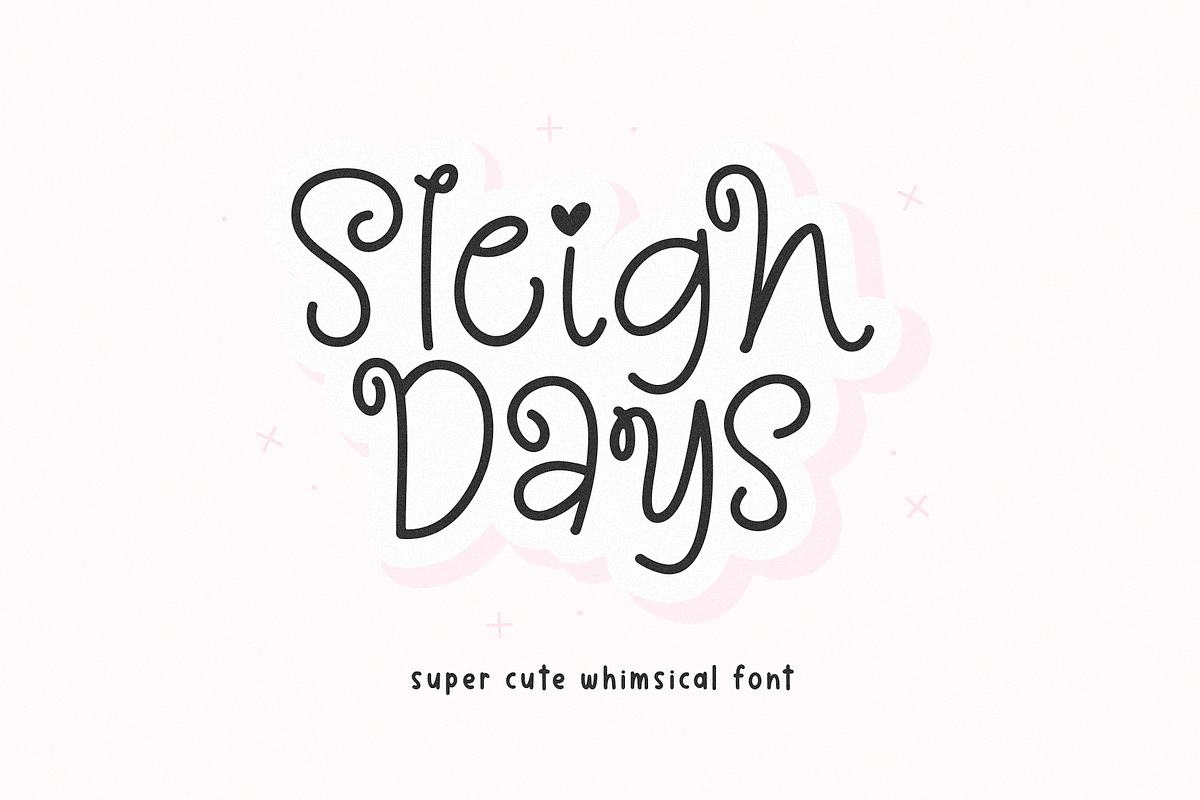
Please note that you must purchase this font for commercial use. You can download Sleigh Days – Cute Holiday Font for free, strictly for personal testing purposes only. Sleigh Days is a whimsical and cheerful display font designed to capture the magic and coziness of the holiday season. With playful curves, soft letterforms, and a festive feel, Sleigh Days Cute Holiday Font Free Download is perfect for Christmas cards, winter party invitations, gift tags, holiday merch, seasonal branding, and joyful social media posts.
This font radiates warmth and charm—ideal for projects aimed at families, kids, or anyone who loves the spirit of the season. It includes uppercase and lowercase letters, numerals, punctuation, and multilingual support, offering flexibility for various creative needs.
Whether you're designing festive printables or heartwarming messages, Sleigh Days brings snow-filled charm and holiday cheer.